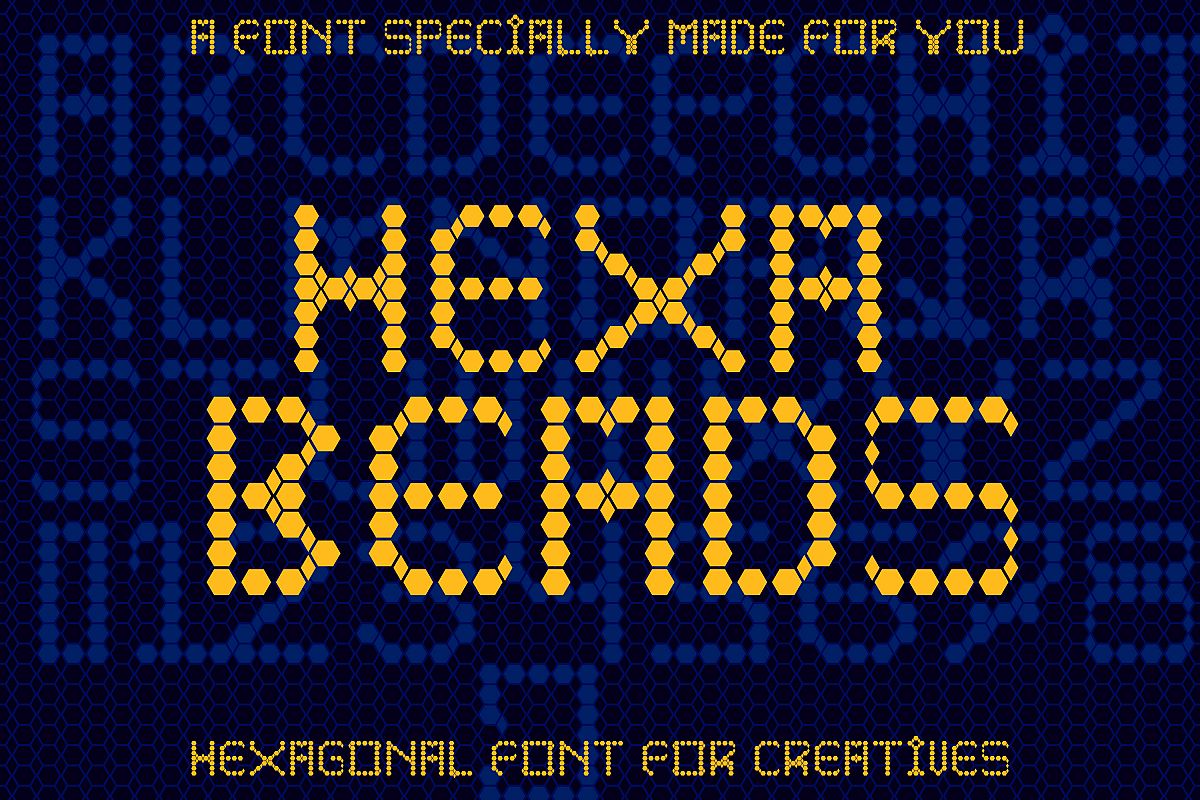
Hexa beads - A Fun Pixel Font
Presenting Cute font for you. This Special Stone font can be used in tons of projects specially in child and new born projects. You can use it for craft purpose and this will looks great on shirts, printing material and other stuff.
2- UPPER Case only Letters A to Z and 0-9 Numbers
3- Super Cute and Creative